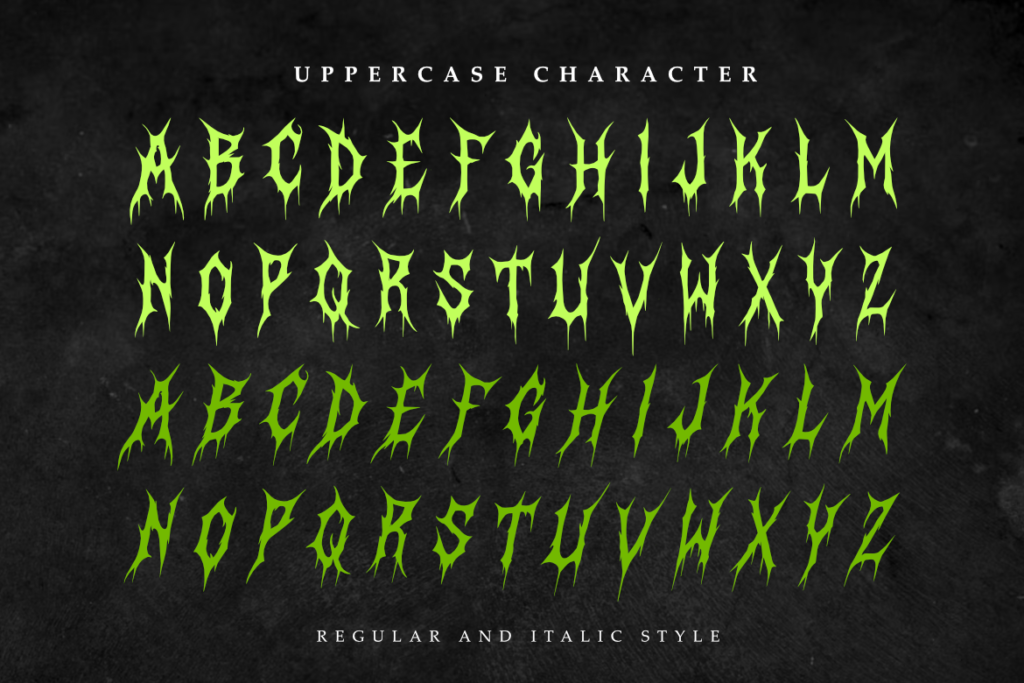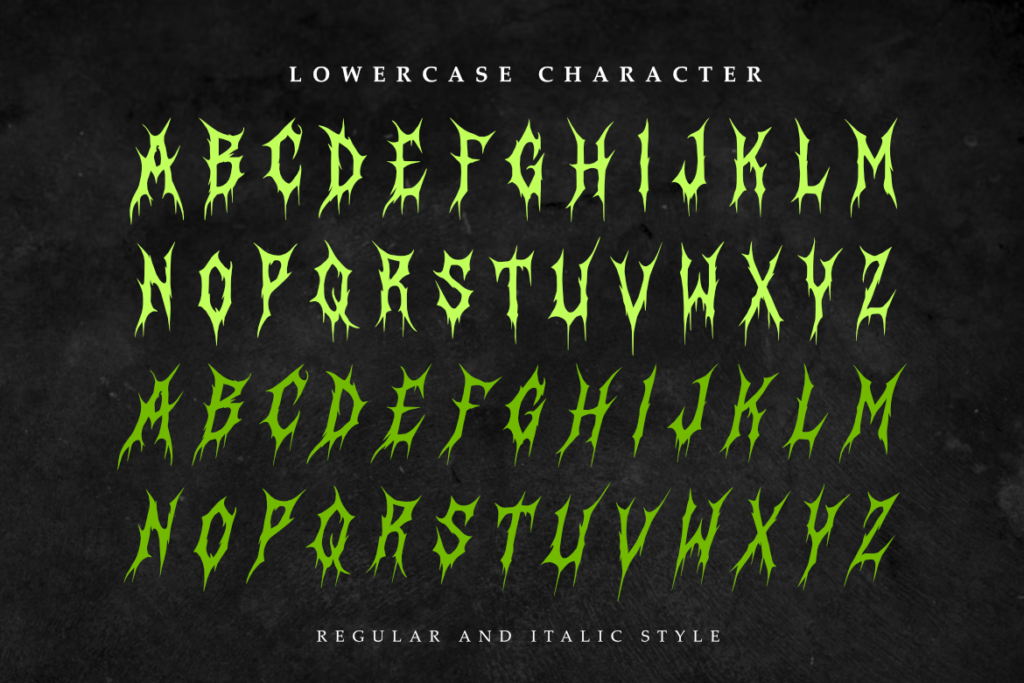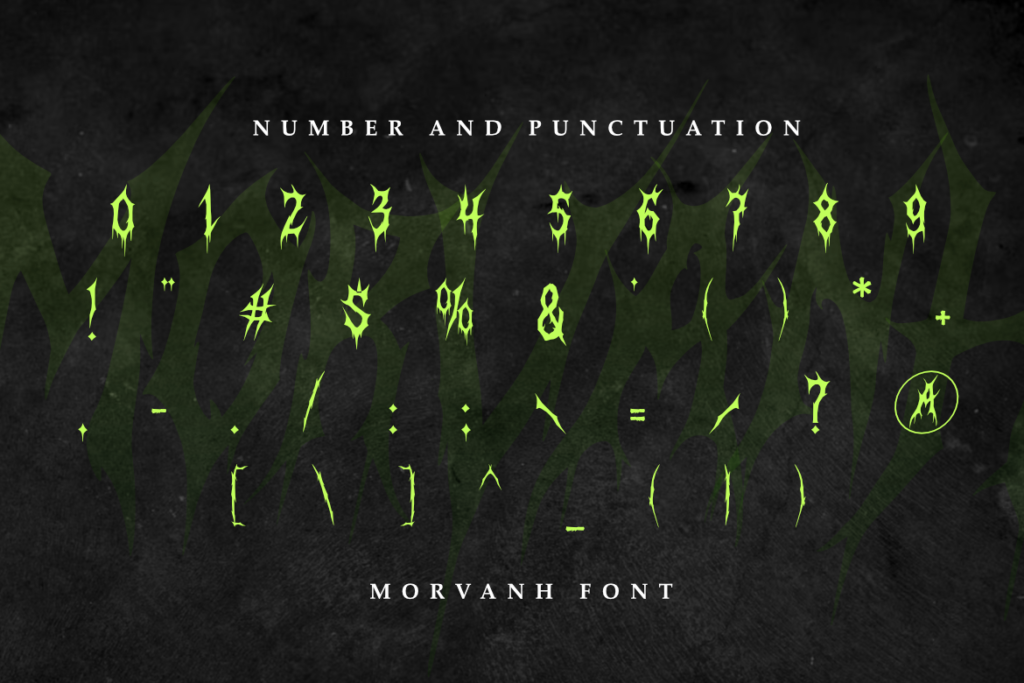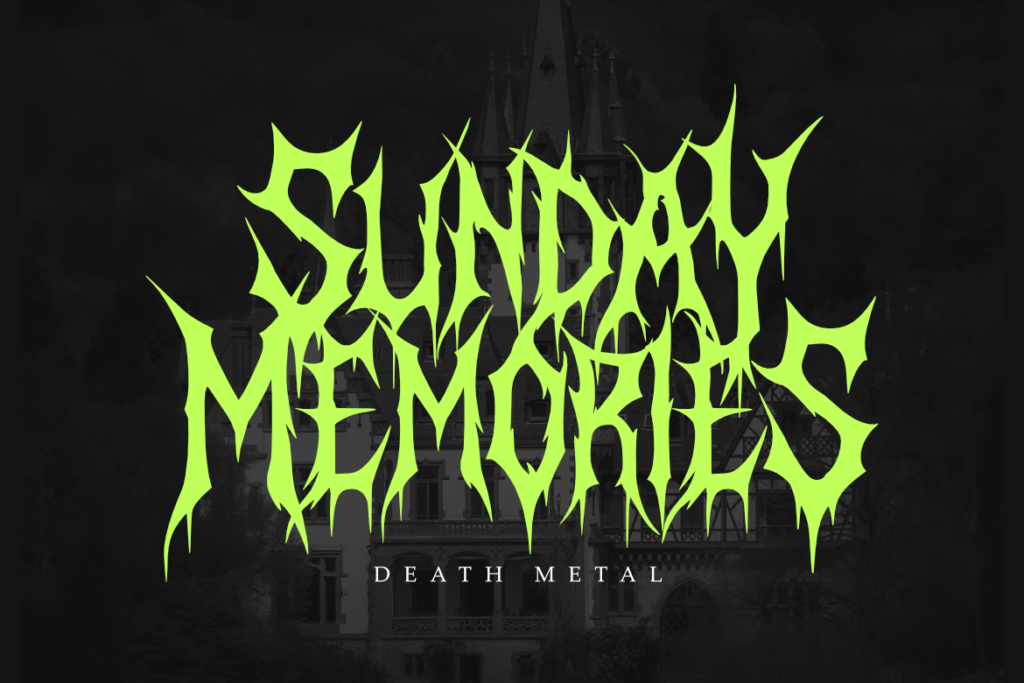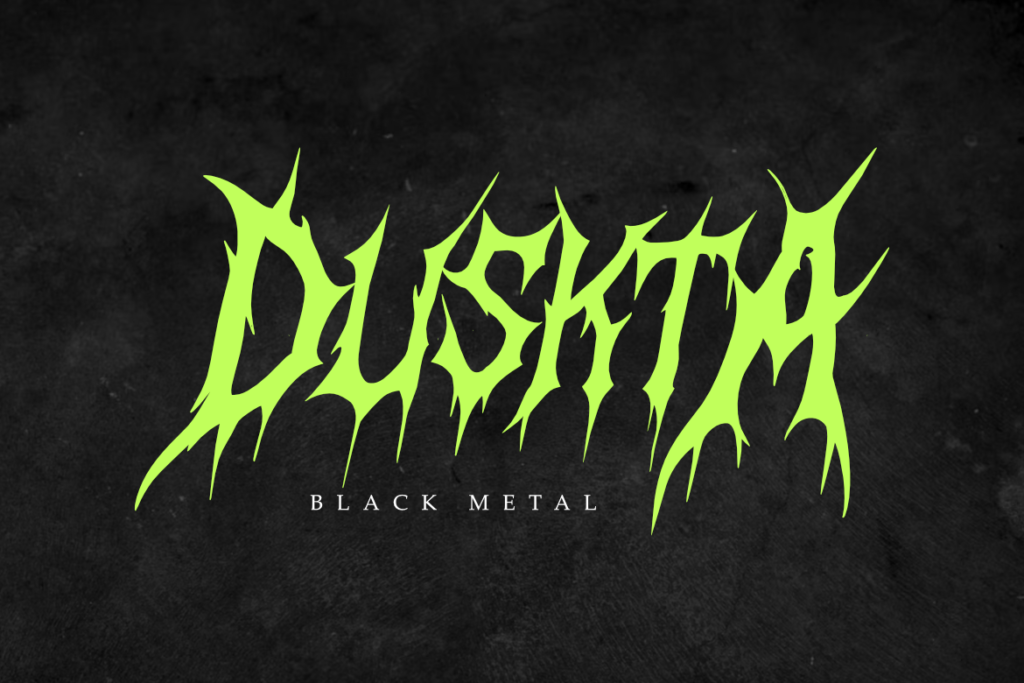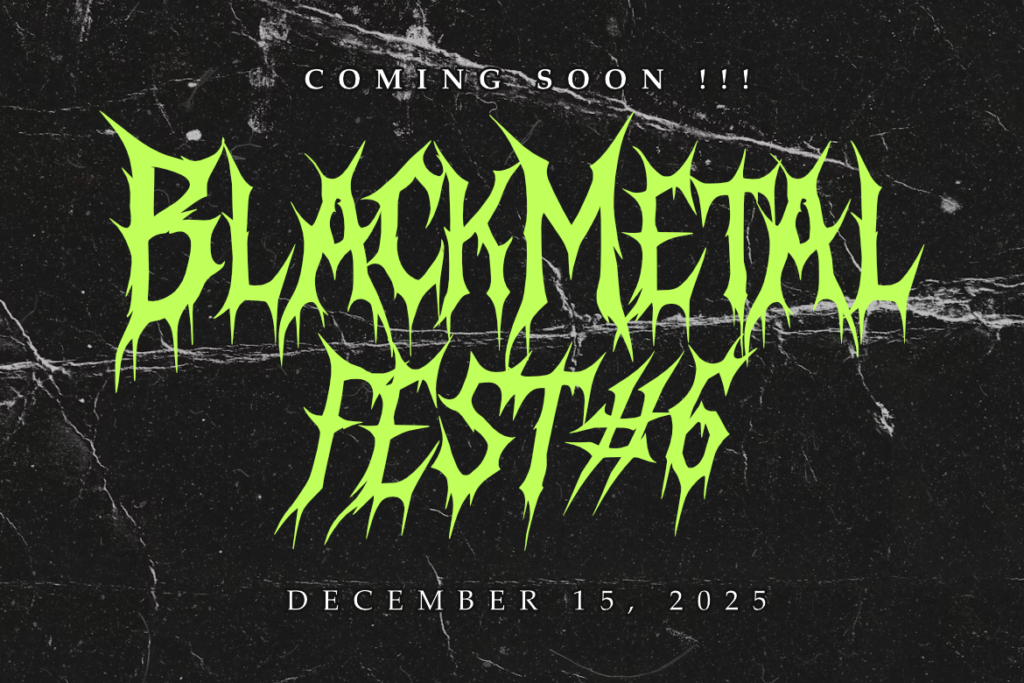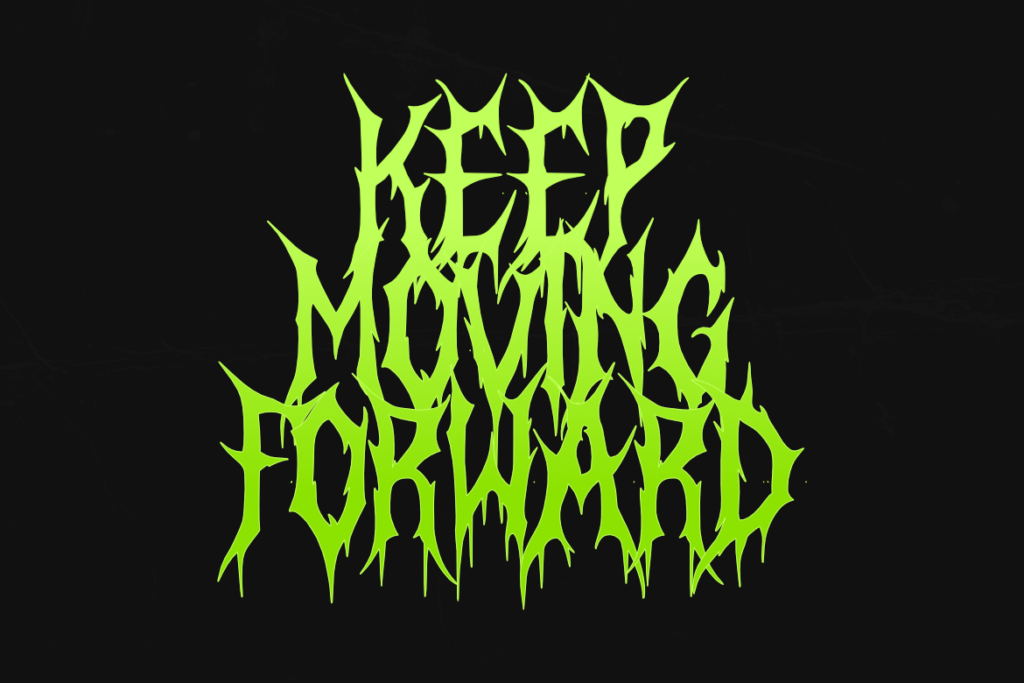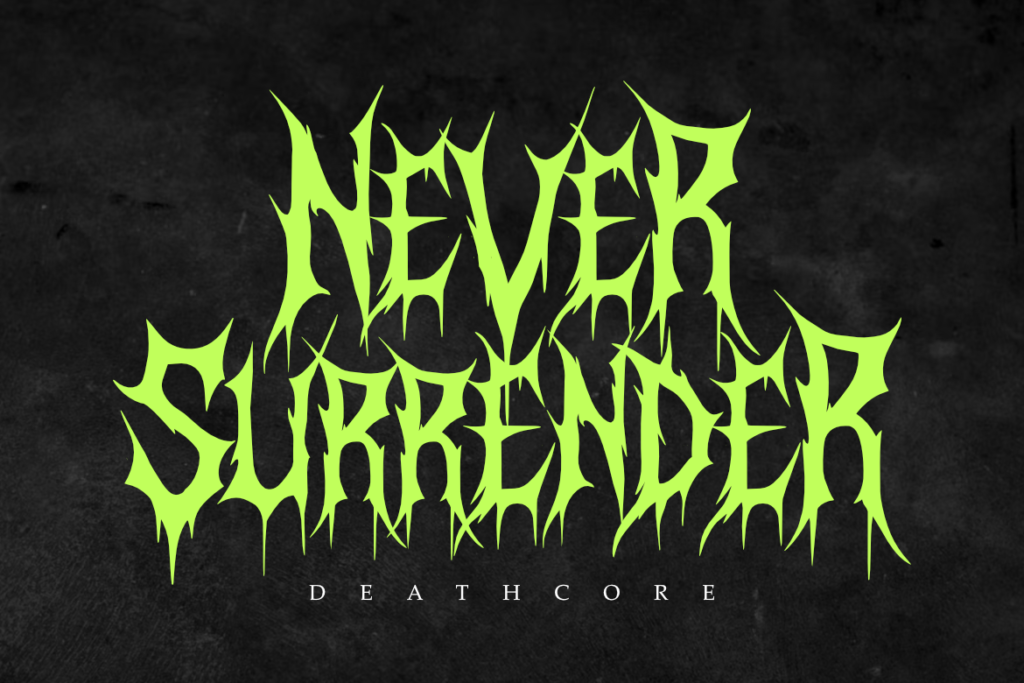
Display typeface · Latin
Morvanh
Death Metal Font for Band Logos, Album Covers & Extreme Branding Introducing Morvanh — a razor-sharp Death Metal Font that bleeds with intensity and raw energy. Designed for artists, bands, and creators who crave extreme visual power, Morvanh brings a natural, aggressive, and organic look that embodies the essence of underground metal culture. With Regular and Italic styles, this typeface is perfect for album covers, posters, horror titles, event flyers, and dark branding. Each letter is meticulously crafted with dripping edges and chaotic spikes, creating an authentic death metal atmosphere that stands out in any design. Unleash the darkness and turn your words into brutal visual art with Morvanh — where chaos meets creativity. Features Uppercase Letters Numbers & Punctuation Regular and Italic Styles OTF, TTF, and WOFF formats Works on PC & Mac Easy to install Perfect For Death Metal Band Logos Horror Movie Titles Album Artwork Gothic Branding & Visuals And More